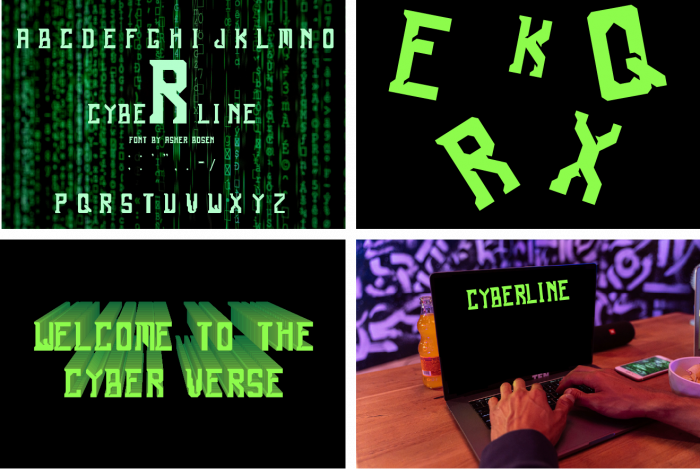
• This type is a font designed for the digital age. With sharp angles and glowing edges, it captures the essence of futuristic technology and virtual spaces, making it perfect for sci-fi projects, gaming interfaces, and anything in need of a high-tech vibe. Made by Asher Bosen for DMACC Typography